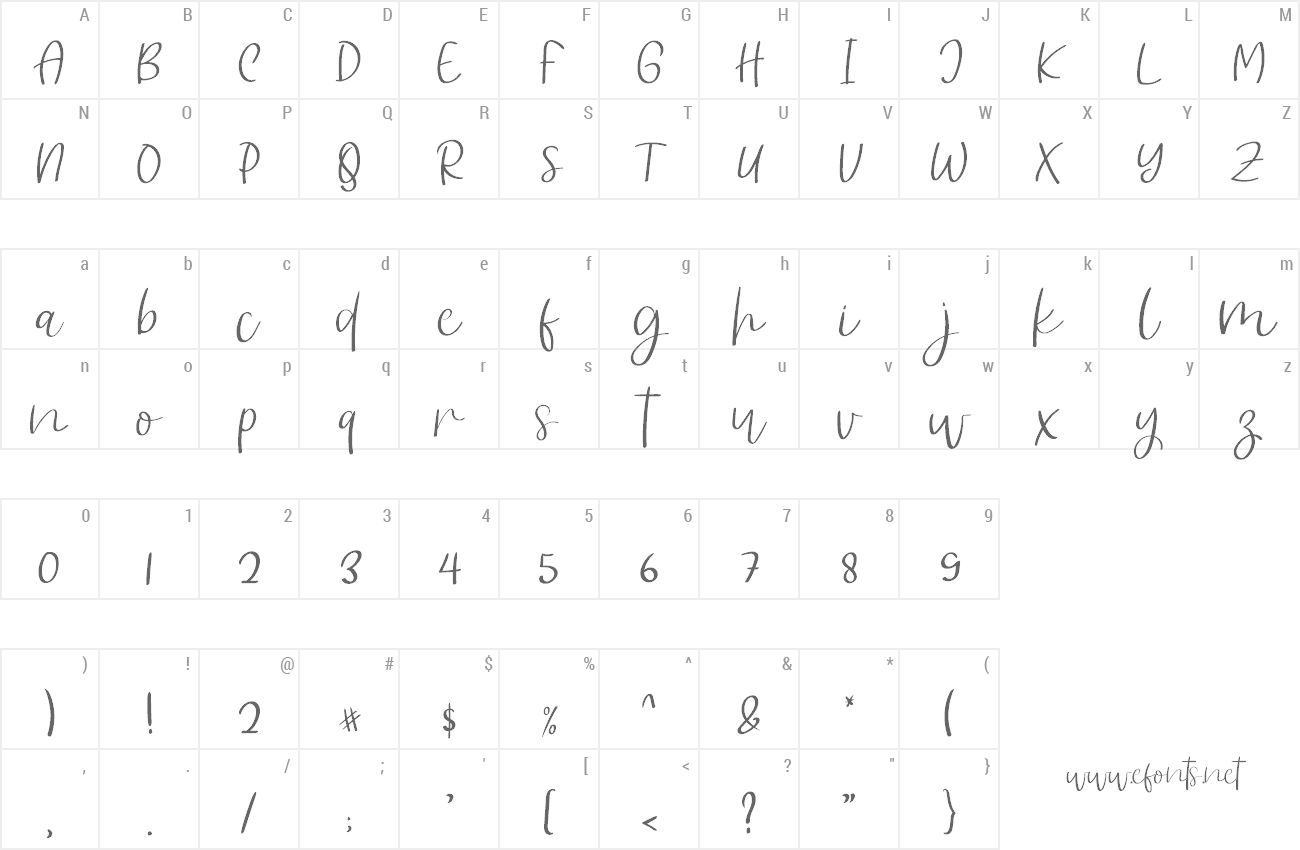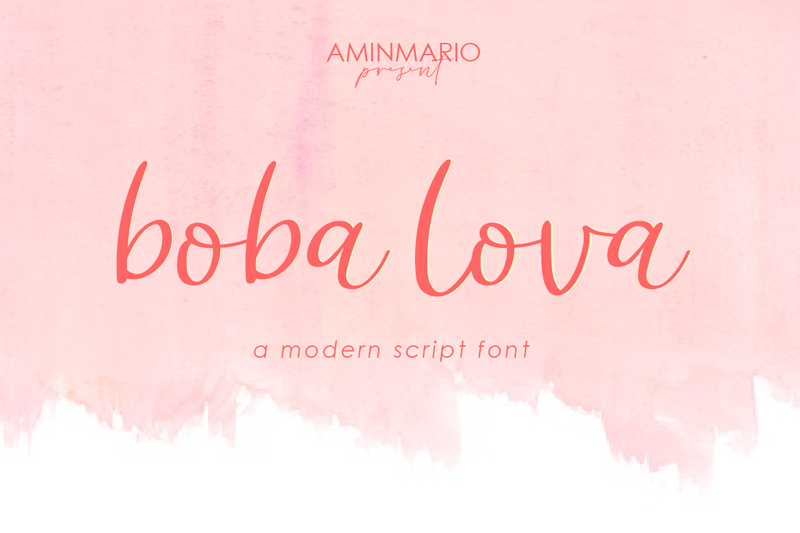
Preview and download Boba Lova Font. Created by Amin Maryono in Script Handwritten styles with Demo license.
| Font name: | Boba Lova |
| Author: | Amin Maryono |
Hi boba lova is a modern script. Comes with full version. perfect for pairing with Sans or Serif fonts. After downloading, you agree that my font is only used for personal (non-commercial) needs. For designers, advertising, publishing, FILM CINEMA etc., if you want to use my font for commercial needs / EXTENDED LICENSE, please EMAIL me! IF YOU HAVE NOT PURCHASED THE LICENSE BUT FIRST BUT USING THIS FONT FOR COMMERCIAL NEEDS, THEN WILL BE SUBJECT TO 100X FOLDING OF THE STANDARD PRICE. But any donation are very appreciated. thanks Paypal account for donation : https://www.paypal.me/aminmario For COMMERCIAL or EXTENDED LICENSE : Please EMAIL at : aminmaryono32@gmail.com INDONESIA Setelah mendownload berarti anda telah menyetujui bahwa font saya hanya digunakan untuk kebutuhan pribadi ( non komersil ). Untuk para desainer Indonesia,periklanan,percatakan,FILM CINEMA dll, jika ingin menggunakan font saya untuk kebutuhan komersial / EXTENDED LICENSE, Silahkan EMAIL saya, JIKA ANDA BELUM MEMBELI LISENSI TERLEBIH DAHULU TETAPI MENGGUNAKAN FONT INI UNTUK KEBUTUHAN KOMERSIL, MAKA AKAN DIKENAKAN 100X LIPAT DARI HARGA STANDARD. TERIMA KASIH Thank You very much Best Regards. AminMario |